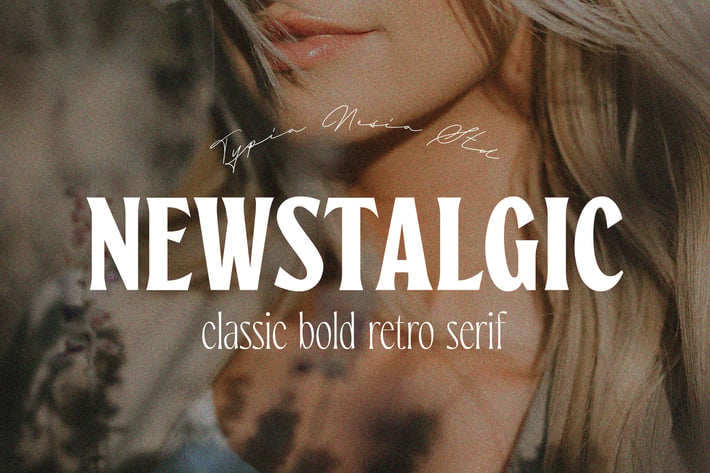
Newstalgic - Classic Retro Extra Black Serif Font
Newstalgic - Classic Retro Condensed Display Serif - Summer Vintage Chubby Bold / Black Font
Newstalgic comes with some alternates and ligatures, so you can combine it to make a perfect typography design. Suitable for any design needs : logo, branding, modern advertising design, vintage garage design, adventure / mountain hiking brand, hardcore music, animation or movie, logos, retro summer poster quote, book / novel cover Title, editorial design, website / blog, card, and any typography needs.